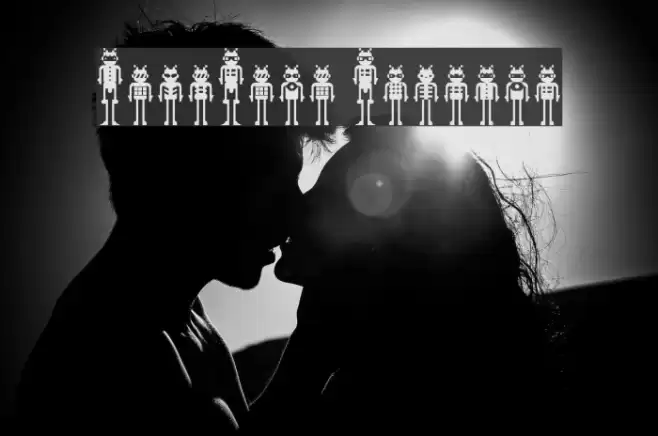
LostRobo Regular Font
LostRobo Regular Description
This font is a unique and playful design featuring characters that resemble robots or mechanical figures. Each character is crafted with a distinct robotic appearance, incorporating elements like antennas and segmented limbs, giving it a futuristic and whimsical feel. The design is consistent across all characters, maintaining a uniform style that is both eye-catching and imaginative. This font is perfect for projects that require a touch of creativity and innovation, making it ideal for tech-related themes or children's content. The characters are well-spaced, ensuring readability while maintaining their decorative appeal.
A playful, robot-themed decorative font with a futuristic style from Dingbats fonts.
- Proposed Projects: Ideal for tech-themed designs, children's books, video game graphics, and creative branding.
- Overall Style: Futuristic, Playful
- Use Case: Logos, Posters, Creative Titles